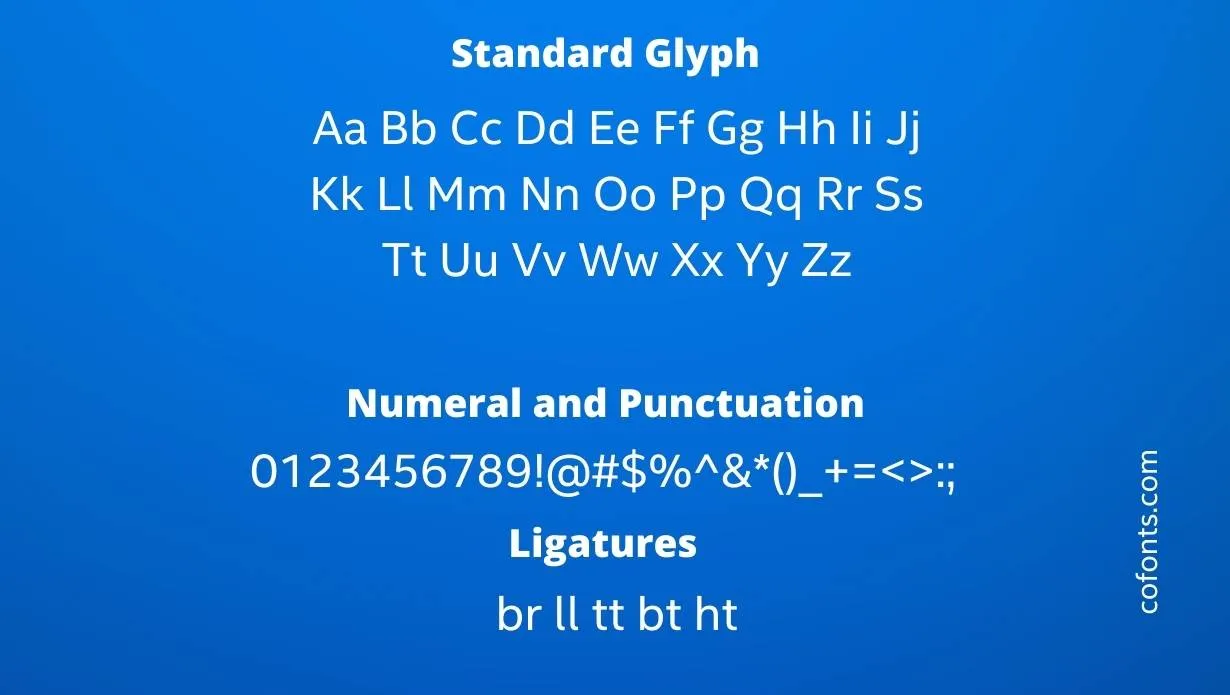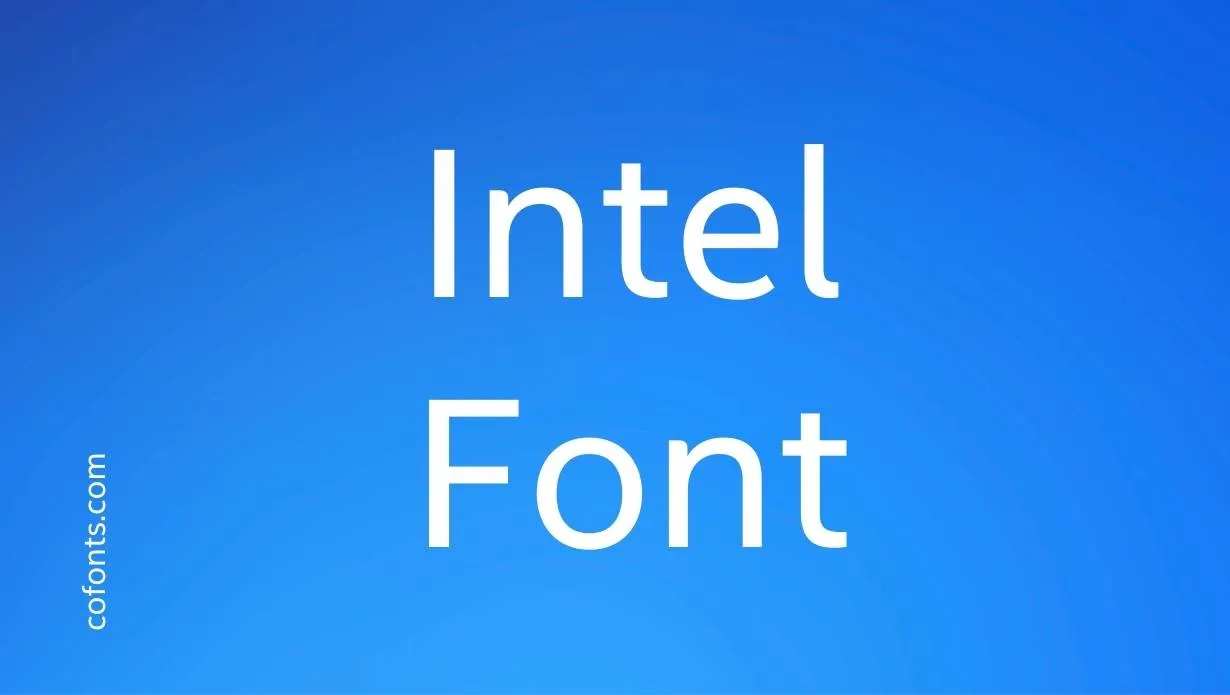
Intel Font
Intel had been utilizing its past typeface for more than ten years, however, with an expanded worldwide nearness and the ascent in electronic media, issues with their inheritance text styles started to rise. Its also called intel regular font.
Since these had been initially intended for print, there were critical issues with proliferation and clearness when they were utilized on screen. Intel content style is an improving substance typeface that gives a brilliant look when anyone looks.
In the occasion that you’re another organizer, by then don’t freeze, you can similarly apply this in vogue content style to your endeavors with no hard effort. Intel content style has landed in a single ordinary manner with an open-type record gathering.
Additionally, that vibrant content style has 239 number of characters, including letters, checks, and numbers. These characters can be utilized to improve the end and start of words comparably as staying talks together. This considers unique mixes that make your structures stick out. It comes inĀ  foundry origin font.
Intel Font has come extraordinarily in alone standard style with real kind features. Also, the unimaginable edge is that that monopoly font printed style has 121 characters, including which are adequate for some specific endeavors. In any case, before using it, you should observe particular headings.